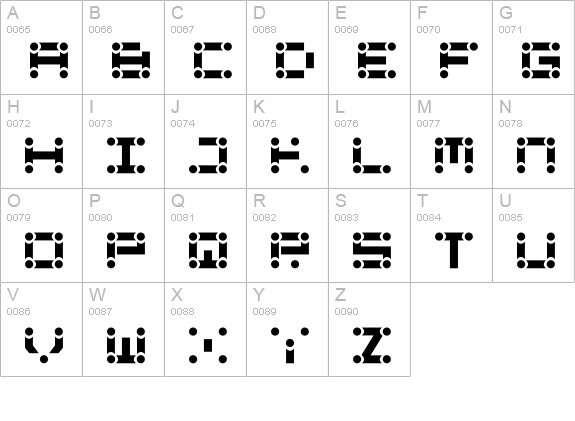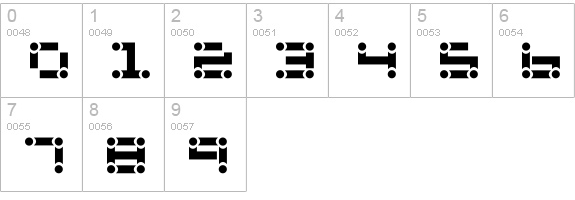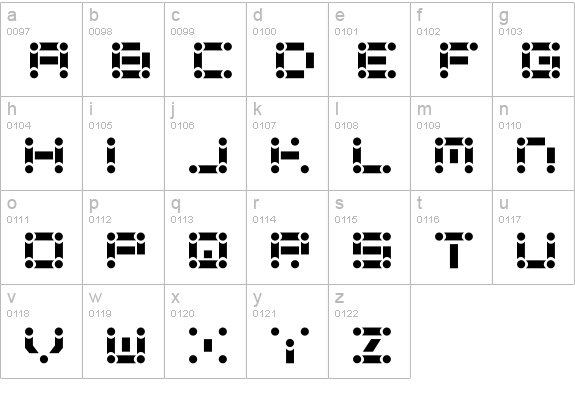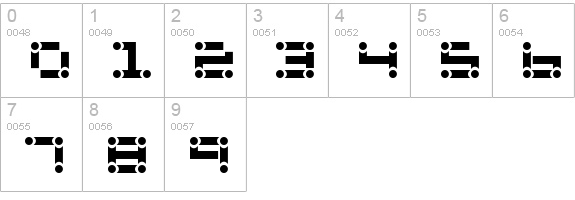
Lincoln Chain font is a stunning display typeface that exudes a sense of strength and elegance. With its bold and interconnected letterforms, this font is perfect for making a bold statement in your designs. The intricate chain-like design adds a unique touch to any project, making it stand out from the crowd. Best of all, Lincoln Chain font is completely free to download at FontsMarket.com. Whether you're working on a branding project, poster design, or any other creative endeavor, this font is sure to make a lasting impression. Don't miss out on the opportunity to add this striking typeface to your collection and elevate your designs to the next level. Download Lincoln Chain font today and let your creativity shine!